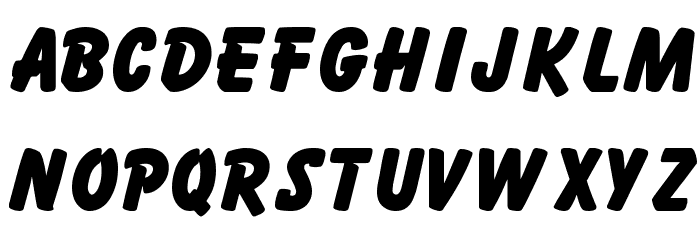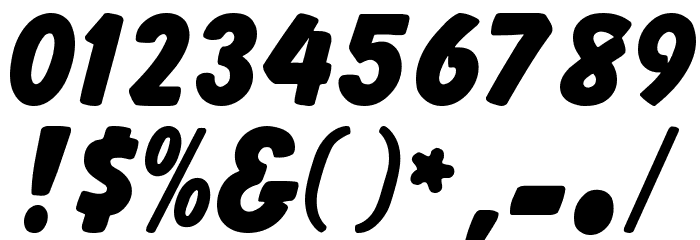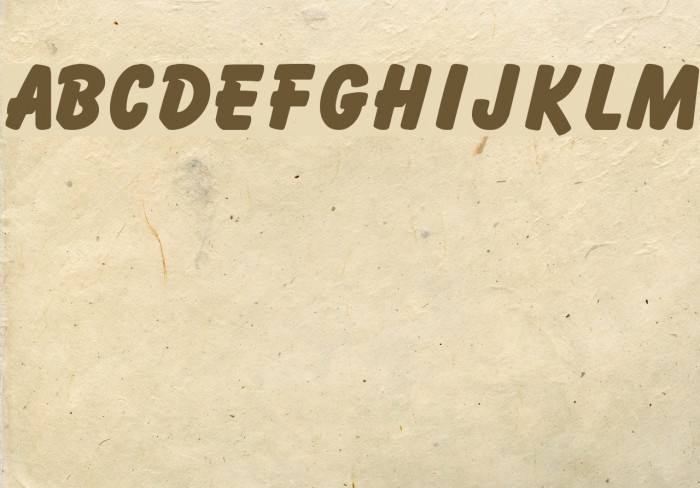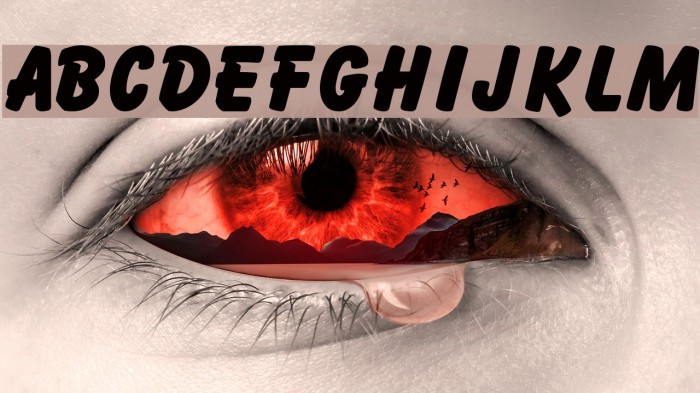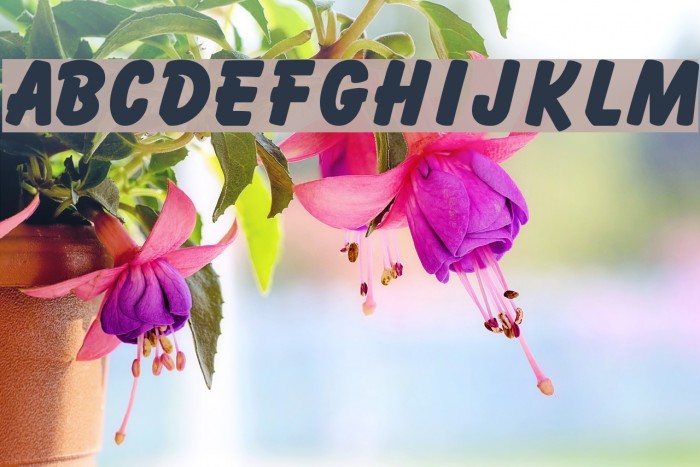
Gonzo Font
This font features bold, rounded characters with a playful and dynamic style. The letters are slightly slanted, giving a sense of motion and energy. The strokes are thick and consistent, providing a strong visual impact. The characters are closely spaced, enhancing the bold appearance. The font includes both uppercase and lowercase letters, numerals, and a variety of special characters, making it versatile for various design needs. Its unique style is reminiscent of hand-painted signage, adding a touch of personality and flair to any project.
A bold, playful font with rounded, slanted characters and strong visual impact.
- Font: Gonzo
- Proposed Projects: Ideal for posters, branding, packaging, and any project that requires a lively and bold typeface.
- Character Spacing: Tight
- Overall Style: Playful, Dynamic